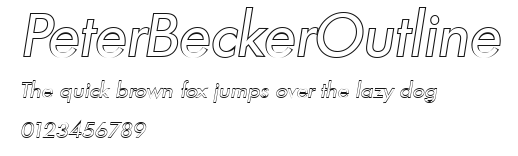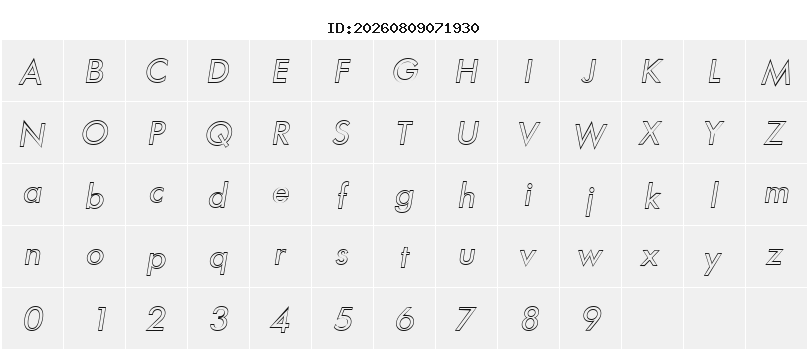
• Font Name: PeterBeckerOutline
PeterBeckerOutline.ttf is a modern, elegant sans-serif font designed for ultimate readability and visual harmony. Perfect for branding, headlines, web design, and print materials.